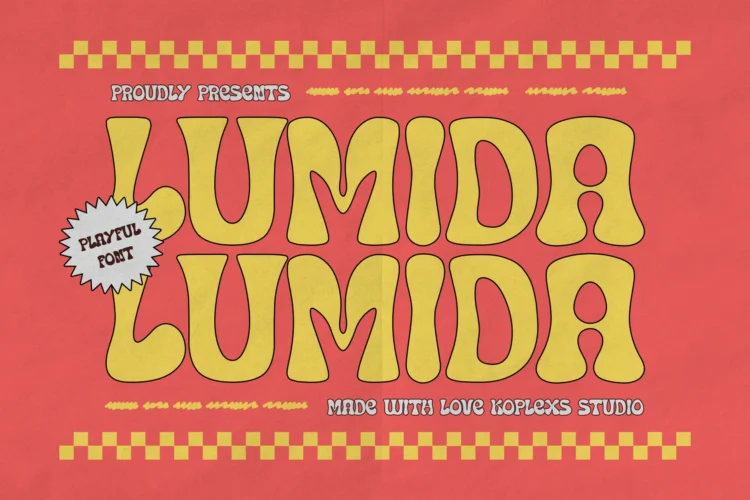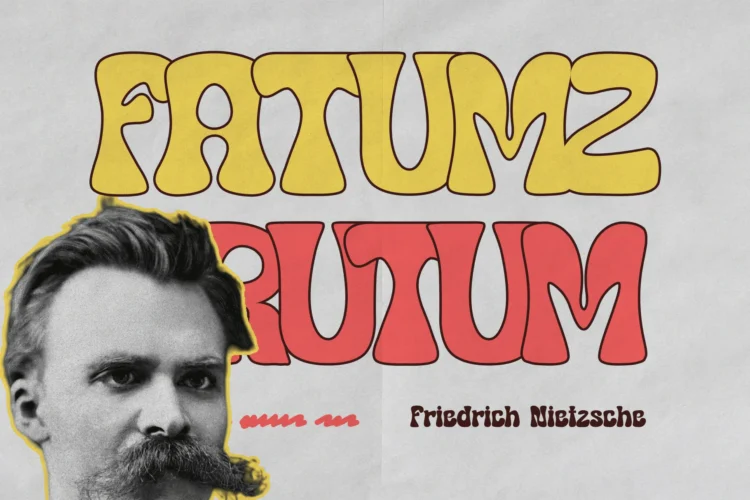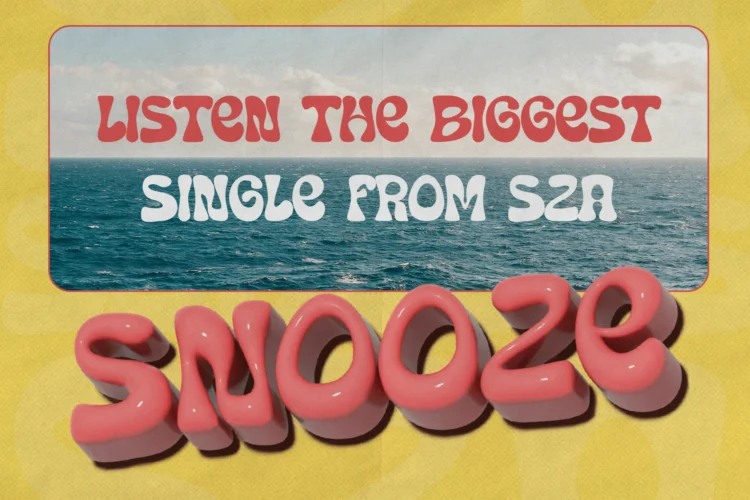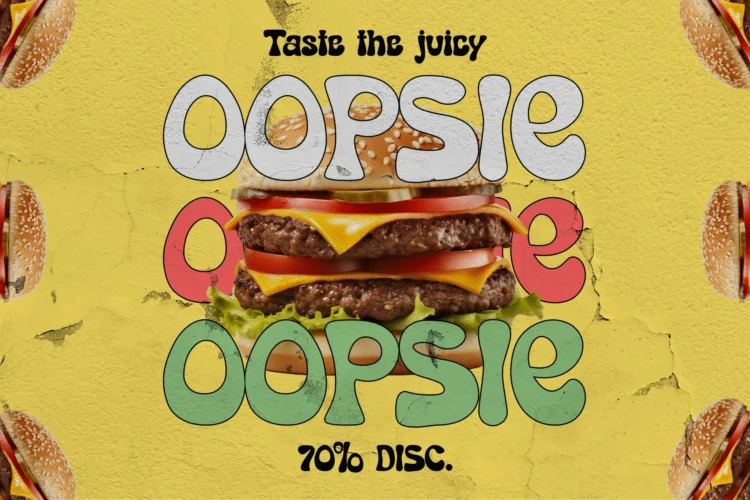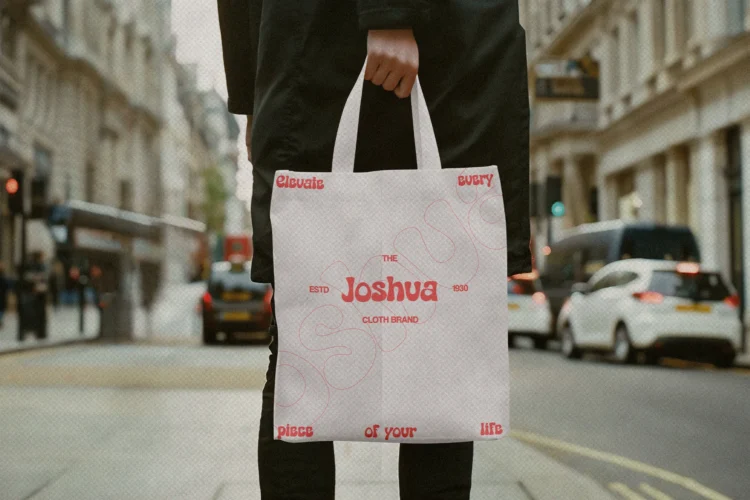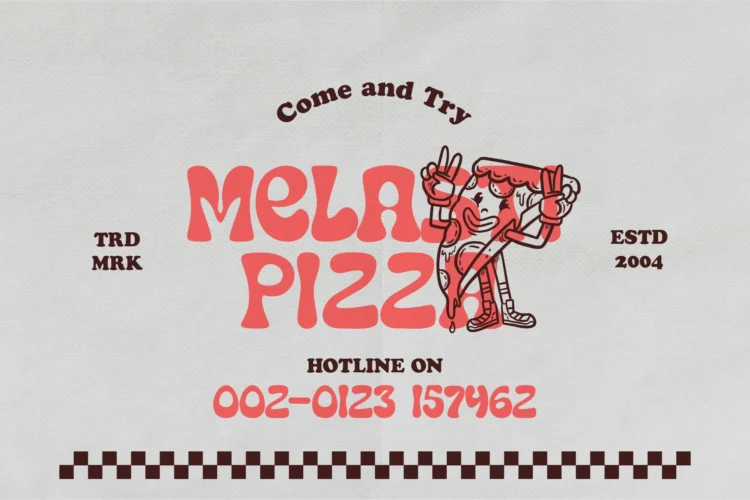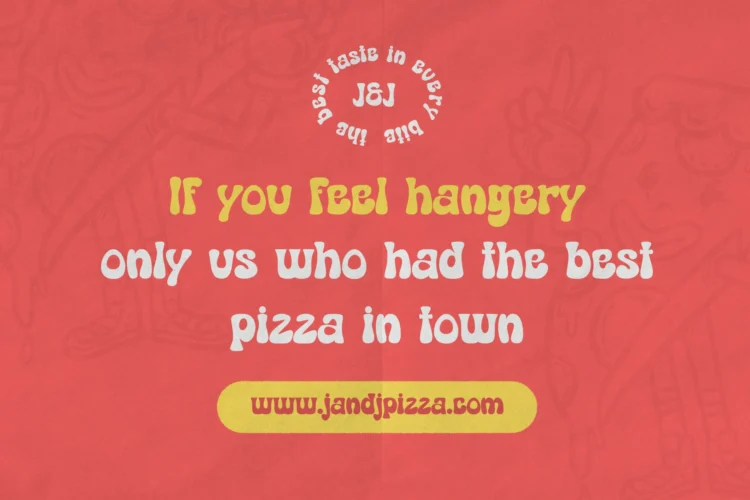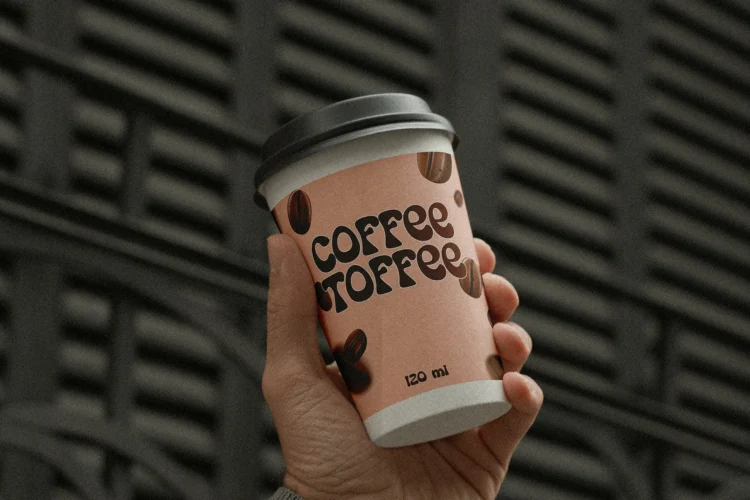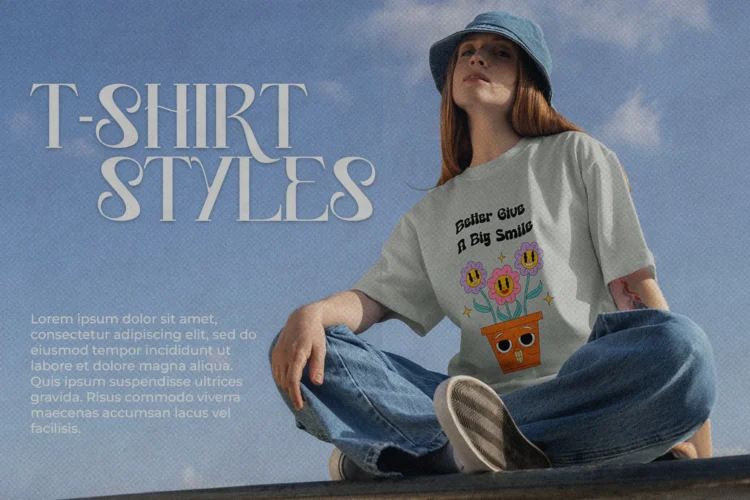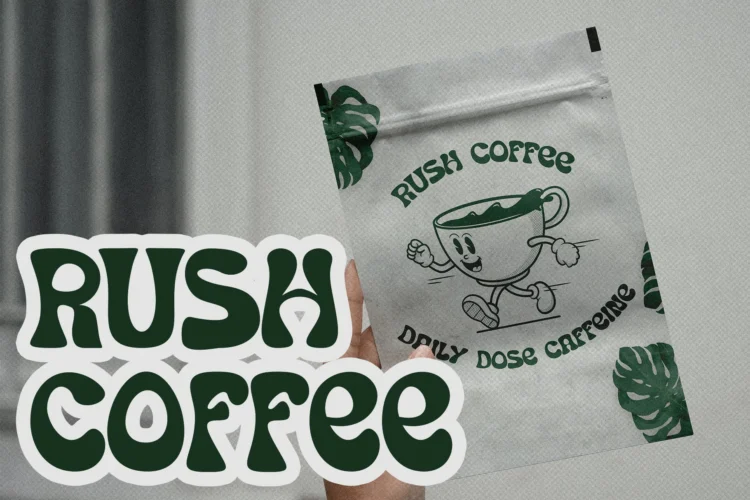
🌈 Lumida Font – Playful Retro Groovy Font for Logos, Posters & Branding
Introducing Lumida Font, a playful Groovy Font that blends vintage charm with modern fun. Inspired by the retro 70s fonts, Lumida brings back the spirit of nostalgia with bold, rounded shapes and soft, honey-like curves that radiate warmth and creativity.
Whether you’re designing a poster, logo, or cover, Lumida is your go-to display font for adding a lively and fancy font twist to any project. Its friendly, fun font personality makes it ideal for holiday designs, craft projects, and cozy brand identities.
Lumida Font is versatile and works beautifully for :
- Branding & Logos: Add character and bold personality
- Posters & Flyers: Grab attention instantly
- Covers & Titles: Create a warm retro impression
- Product Packaging: Perfect for coffee, pizza, or lifestyle brands
- Craft Projects: Handmade and artistic vibes
- Holiday Designs: Joyful and festive lettering
✨Lumida Font Features:
- Unique 70s-inspired retro aesthetic
- Playful and eye-catching letterforms
- Perfect readability for headlines and logos
- Comes with smooth and organic letter shapes
- Pairs beautifully with both modern and vintage designs